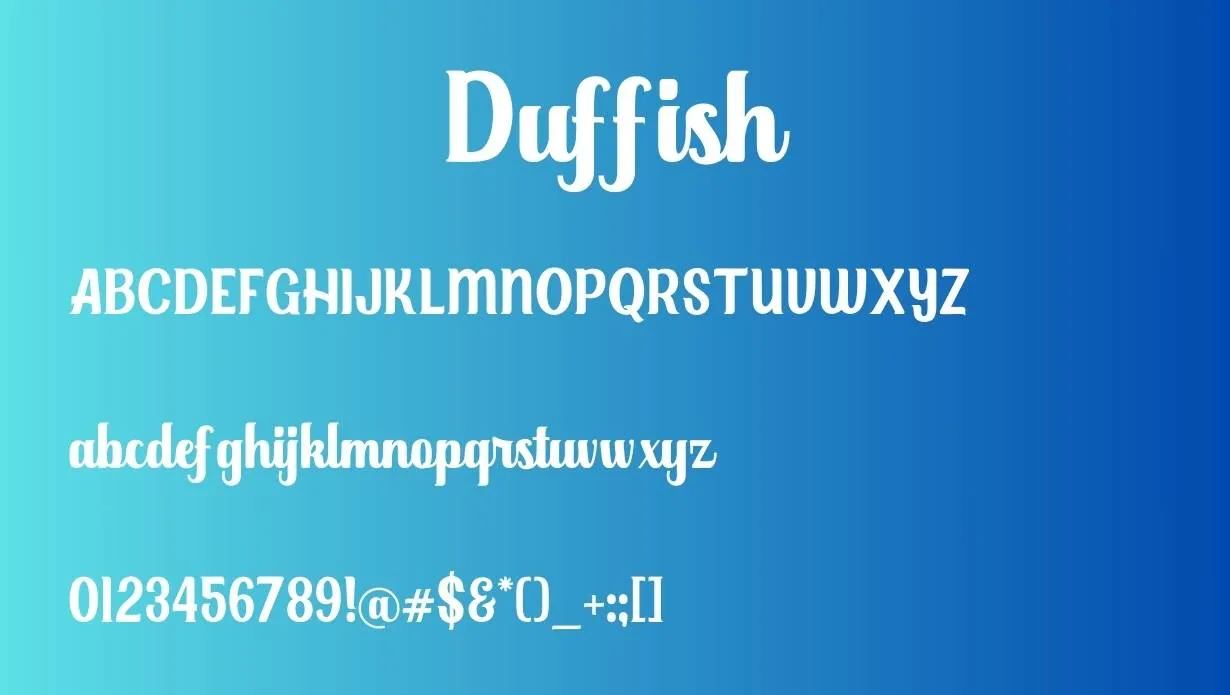
Duffish is a playful and whimsical font that brings a sense of fun and creativity to text. With its rounded letterforms and quirky design, Duffish is ideal for projects targeting a younger audience or those requiring a light-hearted and casual tone.
This font is often used in children’s book covers, party invitations, or any design where a touch of whimsy is desired. Duffish serves its purpose by infusing a sense of joy and playfulness into text, making it suitable for projects that aim to create a cheerful and carefree atmosphere.